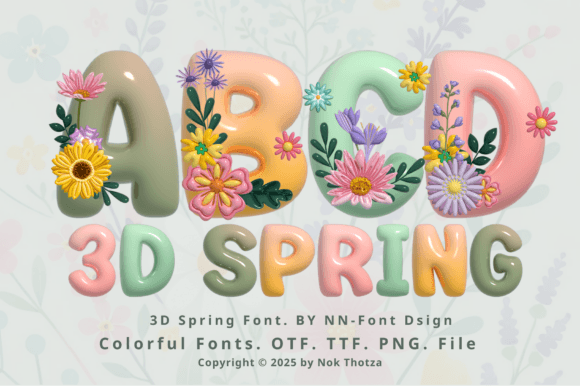
Spring into Design with the 3D Spring Font
As a designer, there’s nothing quite like the feeling of being inspired by the beauty of nature. Whether it’s the first blooms of spring or the vibrant colors of a summer sunset, the natural world has a way of sparking creativity and guiding our artistic vision. For me, the arrival of spring is always a reminder to shake off the dull and ordinary, and to infuse my designs with a sense of wonder and joy.
That’s why I’m excited to introduce the 3D Spring Font, a vibrant and playful font that captures the essence of springtime in all its glory. With its soft pastel hues and delicate floral decorations, this font is the perfect tool for designers looking to add a touch of whimsy and charm to their seasonal projects.
Key Features of 3D Spring Font
- Unique Characteristics: 3D spring-inspired design, customizable spring color and size, realistic texture and shading effects
3D Spring Font Review
Overall, I think the 3D Spring Font is a visually striking choice, especially when it comes to titles or headings. ✨ The unique blend of 3D and spring-inspired elements gives it a modern and playful feel that can elevate any design project. I’ve used it in a few projects and received great feedback on its creativity.
Here are some of its strengths:
- Highly customizable: The font can be easily adjusted to fit your design’s color scheme and style.
- Eye-catching: As mentioned earlier, the 3D Spring Font is sure to grab the user’s attention.
- Works well in various contexts: Whether it’s for a website, brochure, or social media post, this font is versatile and adaptable.
- Legibility: At smaller font sizes, the 3D Spring Font can become difficult to read, especially for longer blocks of text.
- Not ideal for body text: While it’s great for titles, the font can become overwhelming if used extensively throughout a piece.
Overall, I’d say the 3D Spring Font is a solid choice for designers looking to add a bit of flair to their projects. While it may not be perfect, its unique style and versatility make it a valuable addition to any design toolkit. Just be sure to use it thoughtfully and in moderation to avoid overwhelming your audience. ⚠️
The 3D Spring Font is ideal for:
- Creating eye-catching titles and headings.
- Designing promotional materials, such as posters and flyers.
- Adding a unique touch to presentations and reports.